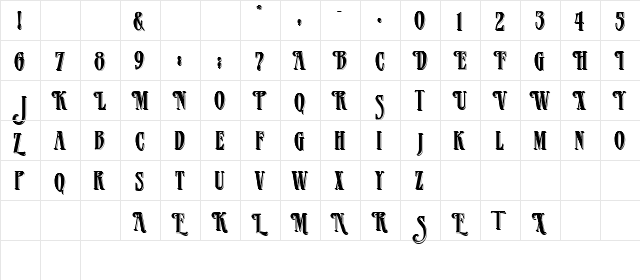
Patrician Blackshadow Regular
Design Context for Patrician Blackshadow Typeface
Patrician Blackshadow brings ornamental detail and strong personality to headlines and identities, where visual impact matters more than quiet functionality.
Font Pairing: Pair with a clean neutral sans-serif for body copy to let Patrician Blackshadow's character lead without overwhelming the composition.
Pro Tip: Use Patrician Blackshadow exclusively at display sizes — it was designed to be seen, not read at length. Let a neutral companion handle body copy.